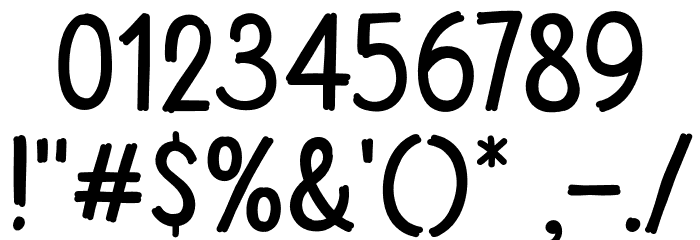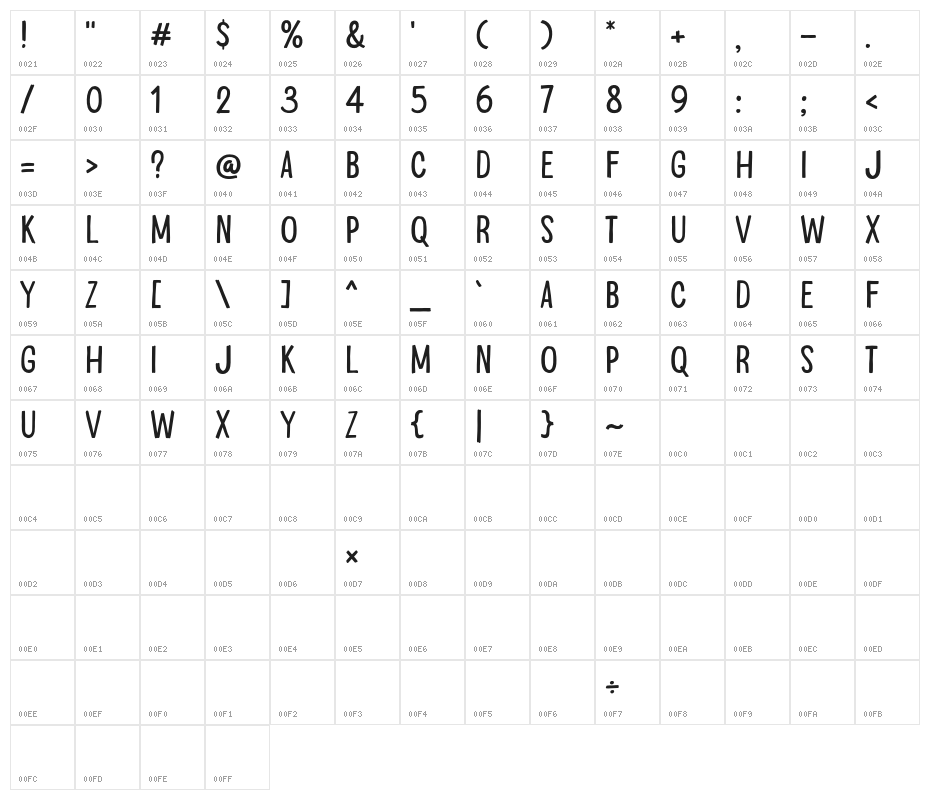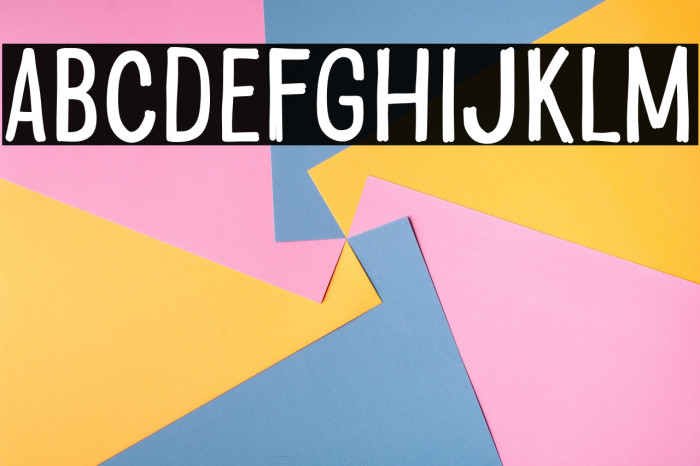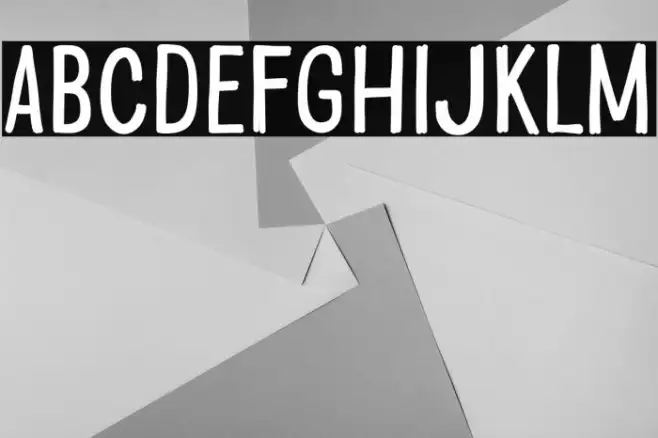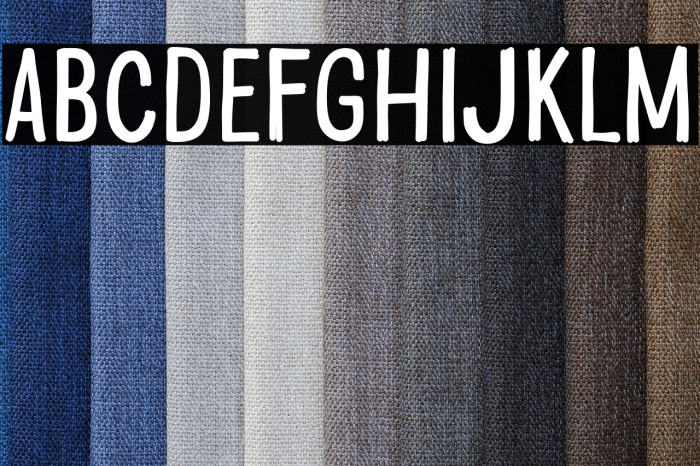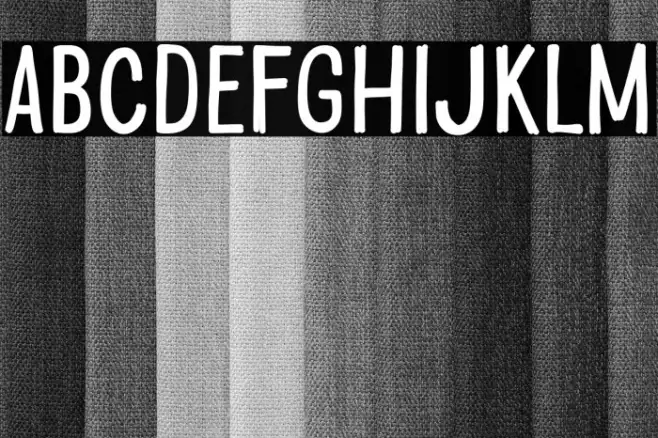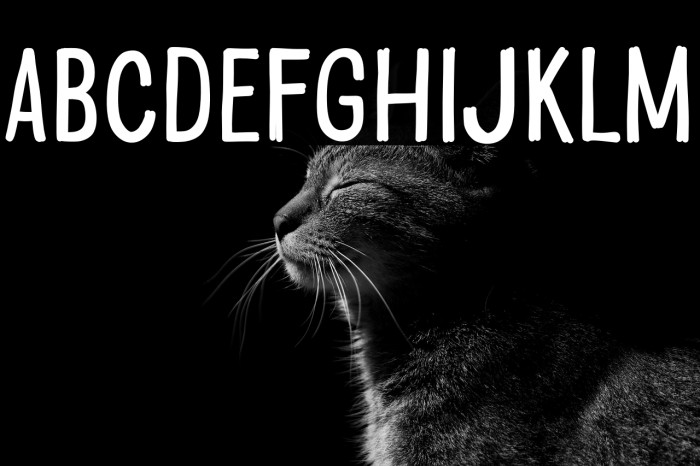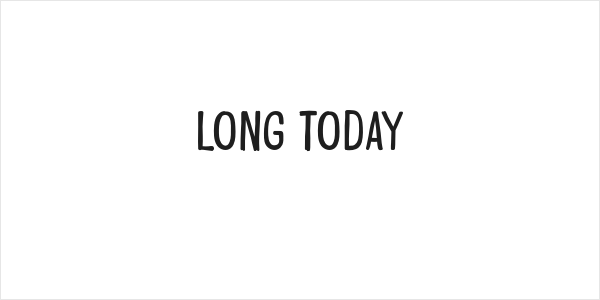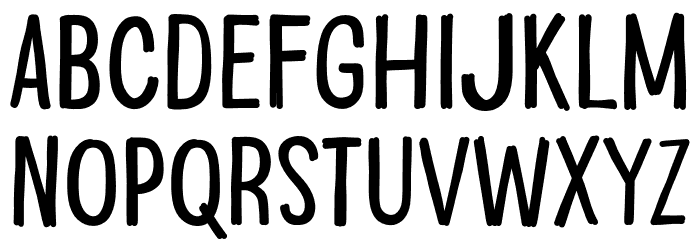
Long Today Font
Long Today Description
This font features a bold, handwritten style with a playful and casual appearance. The characters are slightly irregular, giving them a unique and organic feel. The uppercase letters are tall and narrow, while the lowercase letters maintain a consistent height, creating a harmonious balance. Numbers and special characters are designed with the same boldness and playful style, making them stand out. The overall look is modern yet approachable, perfect for projects that require a personal touch.
| Proposed Projects | Ideal for greeting cards, posters, social media graphics, and branding projects that require a personal and friendly touch. |